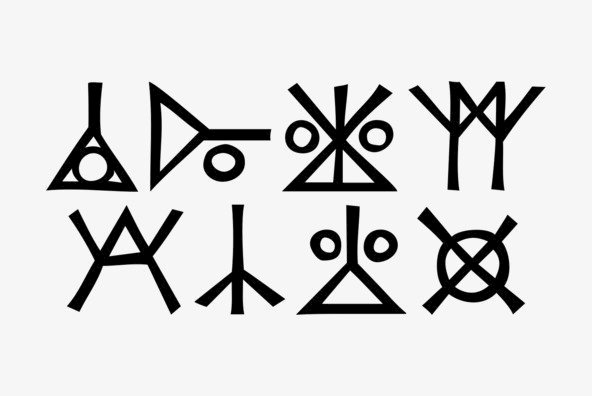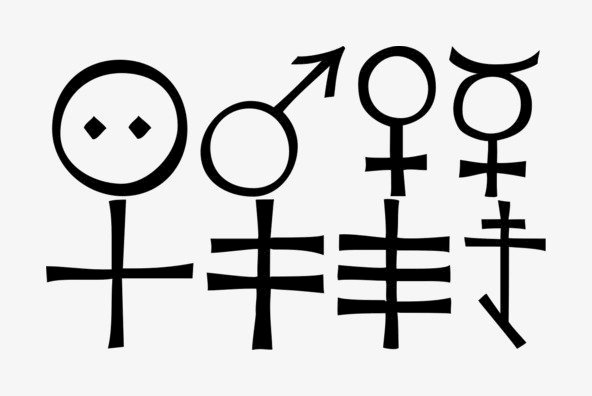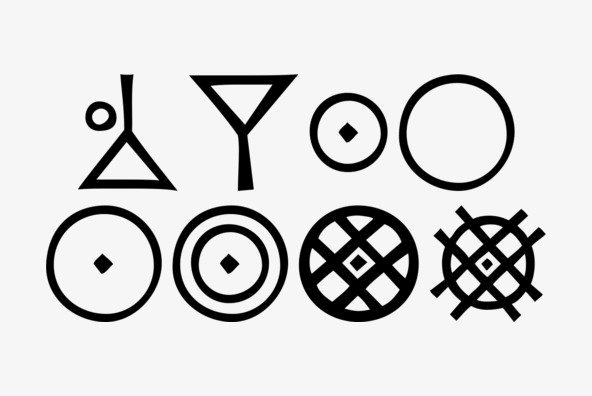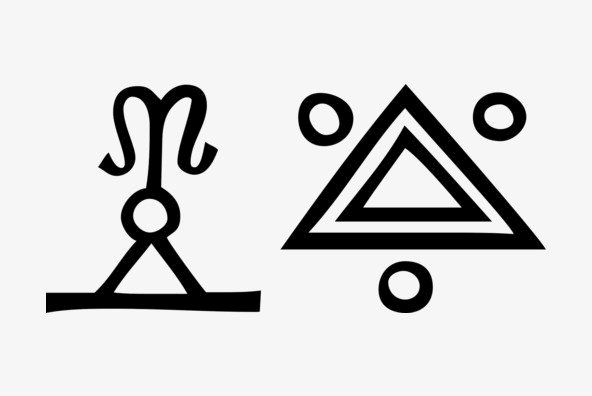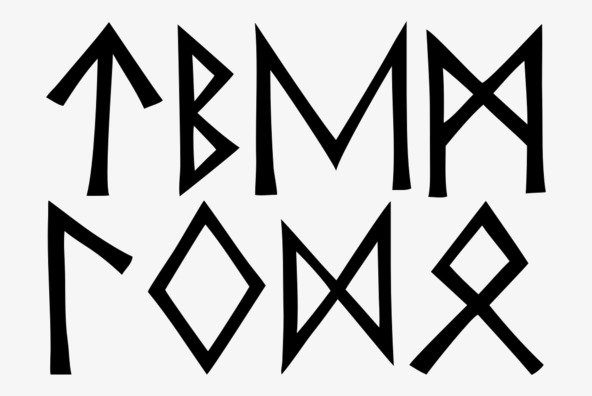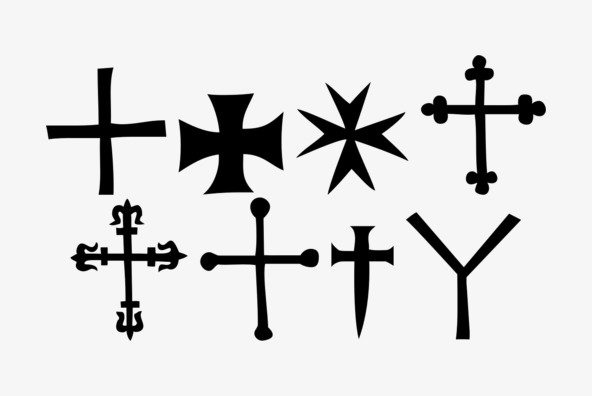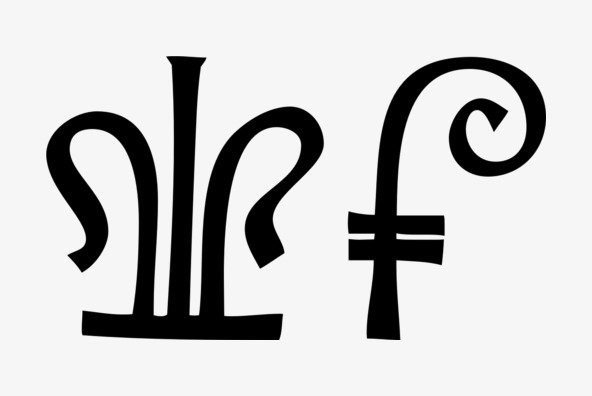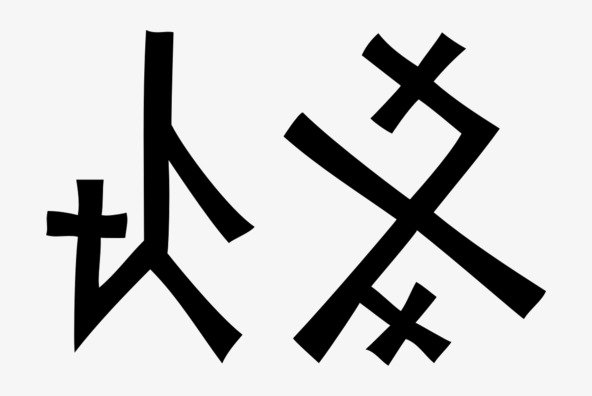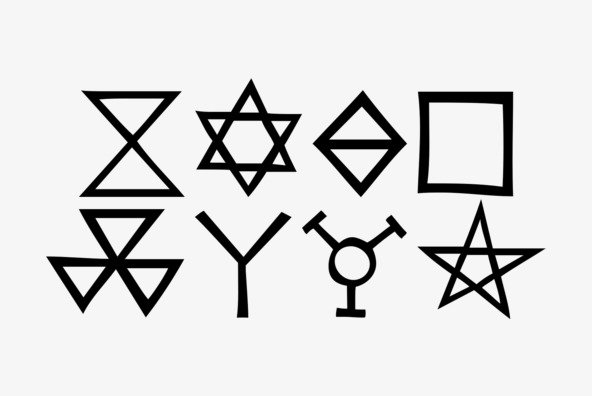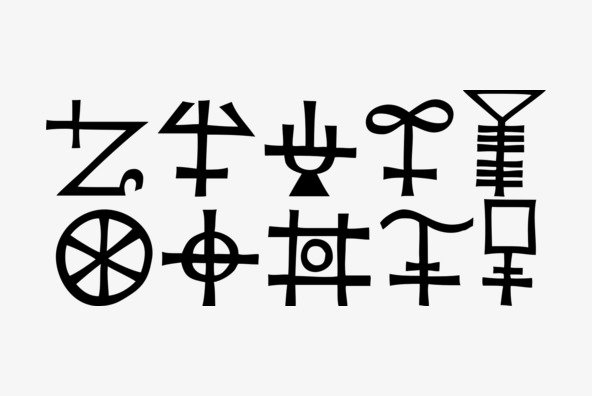
This set reproduces over 350 of the signs contained in German typographer Rudolf Koch’s “The Book of Signs,” the symbols include Astrological, Christian, Medieval and Runic iconography.